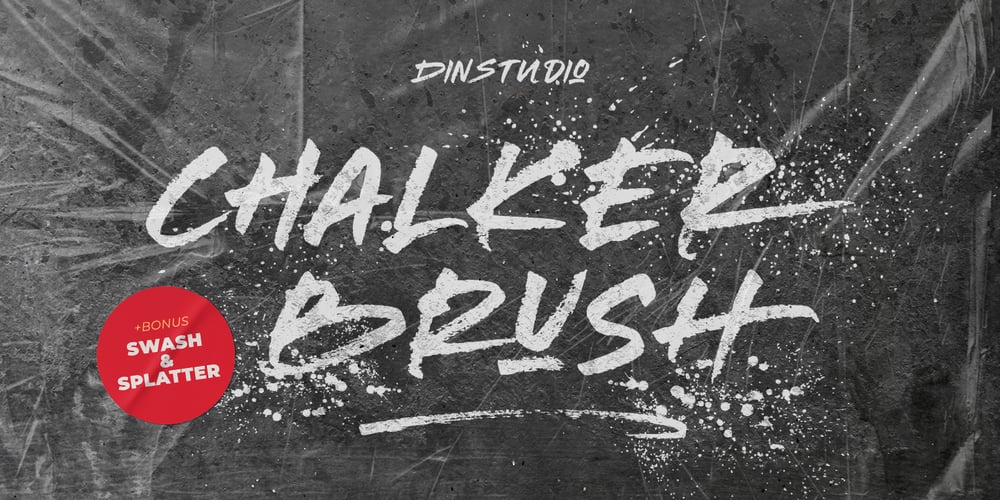
Chalker Brush Font Family was designed by Donis Miftahudin and published by Din Studio. Chalker Brush contains 3 styles and family package options. Chalker Brush is a bold and energetic brush font that brings an urban edge to your designs. Crafted with uppercases, dynamic letters, this typeface maintains consistent proportions for a balanced and cohesive look. To enhance its raw, street-inspired aesthetic, Chalker Brush includes bonus splatters and swashes—perfect for adding a burst of creativity and authenticity. Chalker Brush delivers a distinctive, handcrafted style with contemporary flair. In addition, enjoy the features here. Features: Alternates Ligatures Multilingual Supports PUA Encoded Numerals and Punctuations Chalker Brush fits in headlines, logos, posters, branding materials, packaging, print media, editorial layouts, and many more designs. Find out more ways to use this font by taking a look at the font preview.Thanks for purchasing our fonts. Hopefully, you have a great time using our font. Feel free to contact us anytime for further information or when you have trouble with the font. Thanks a lot and happy designing.